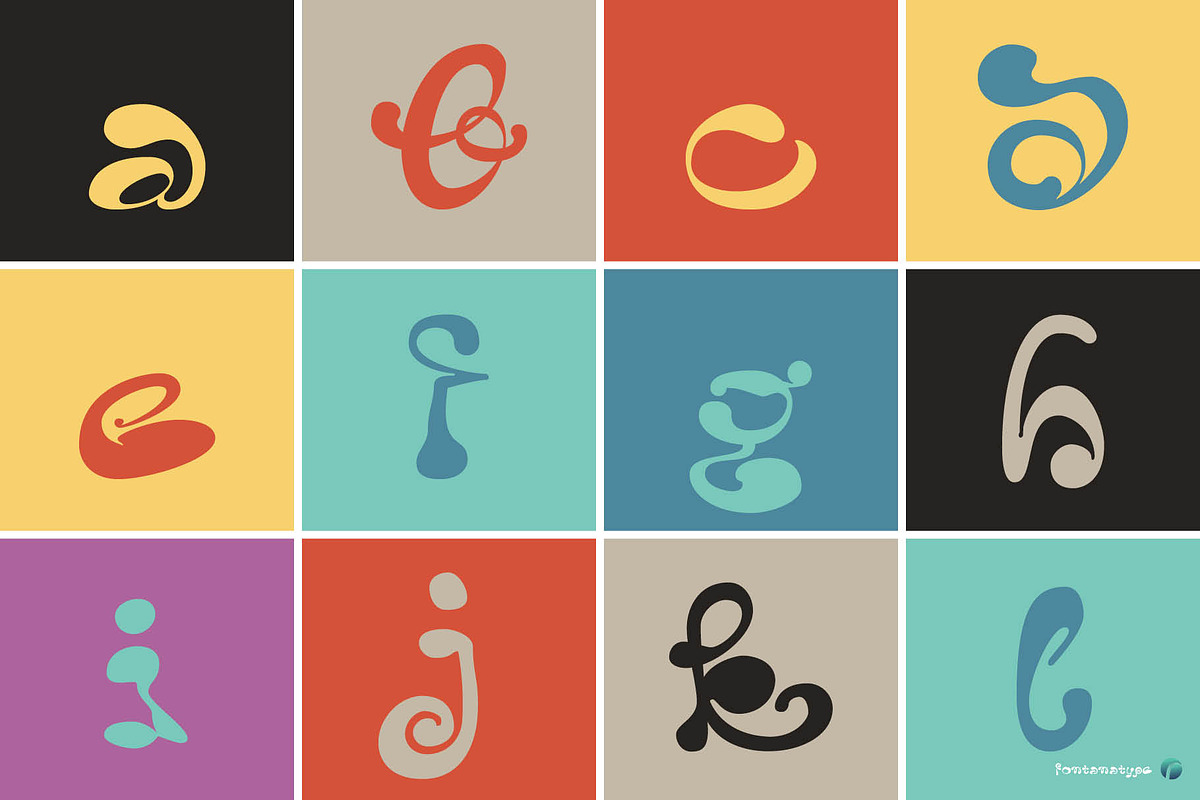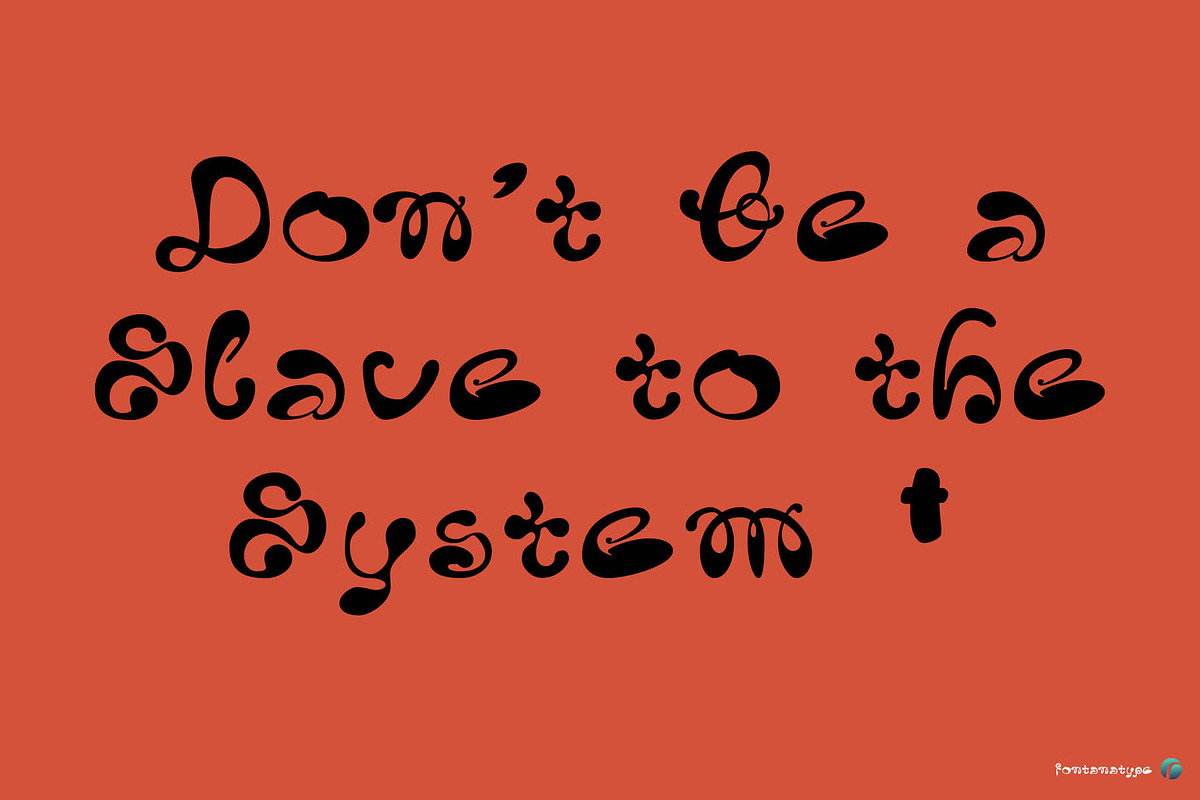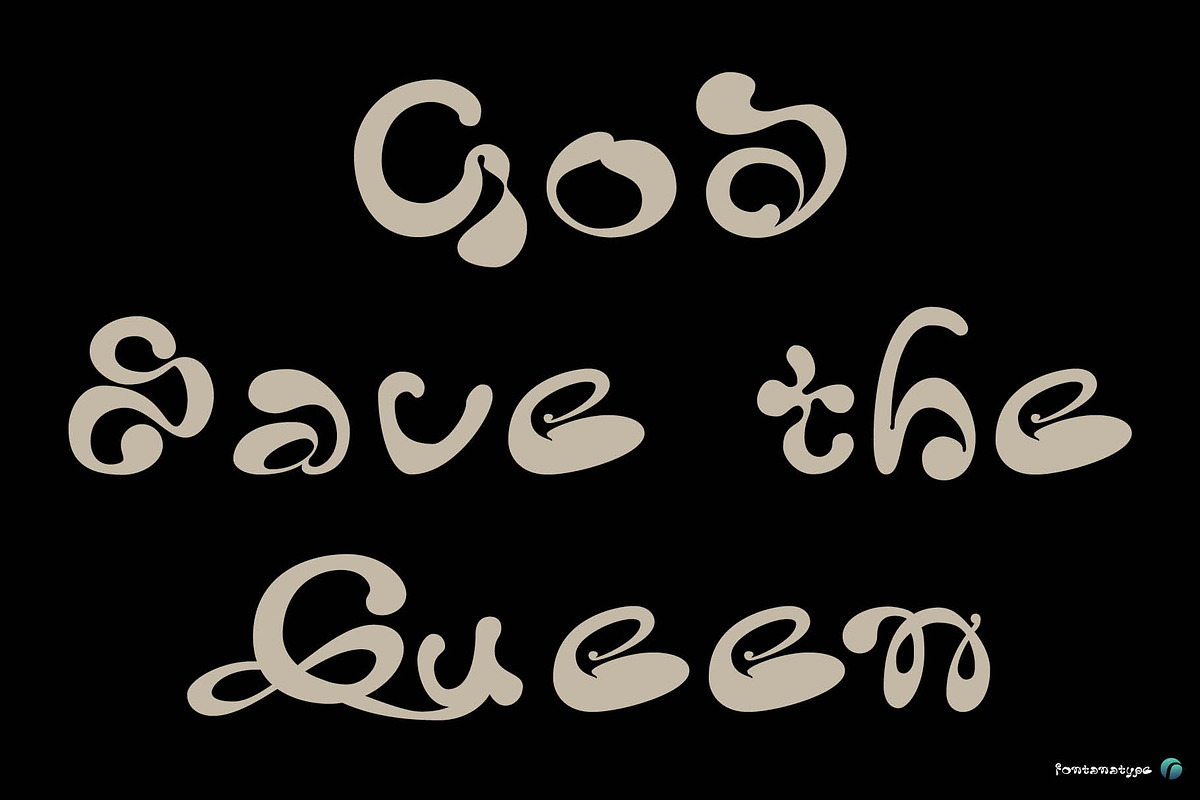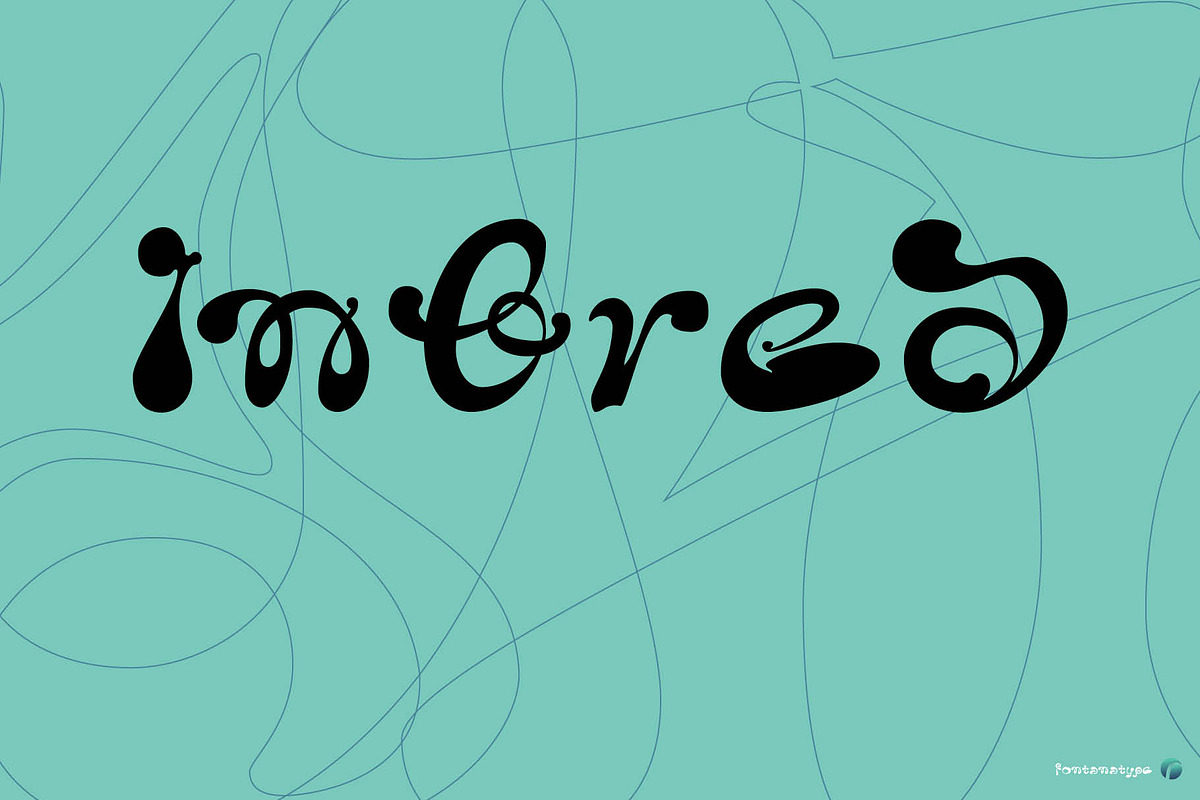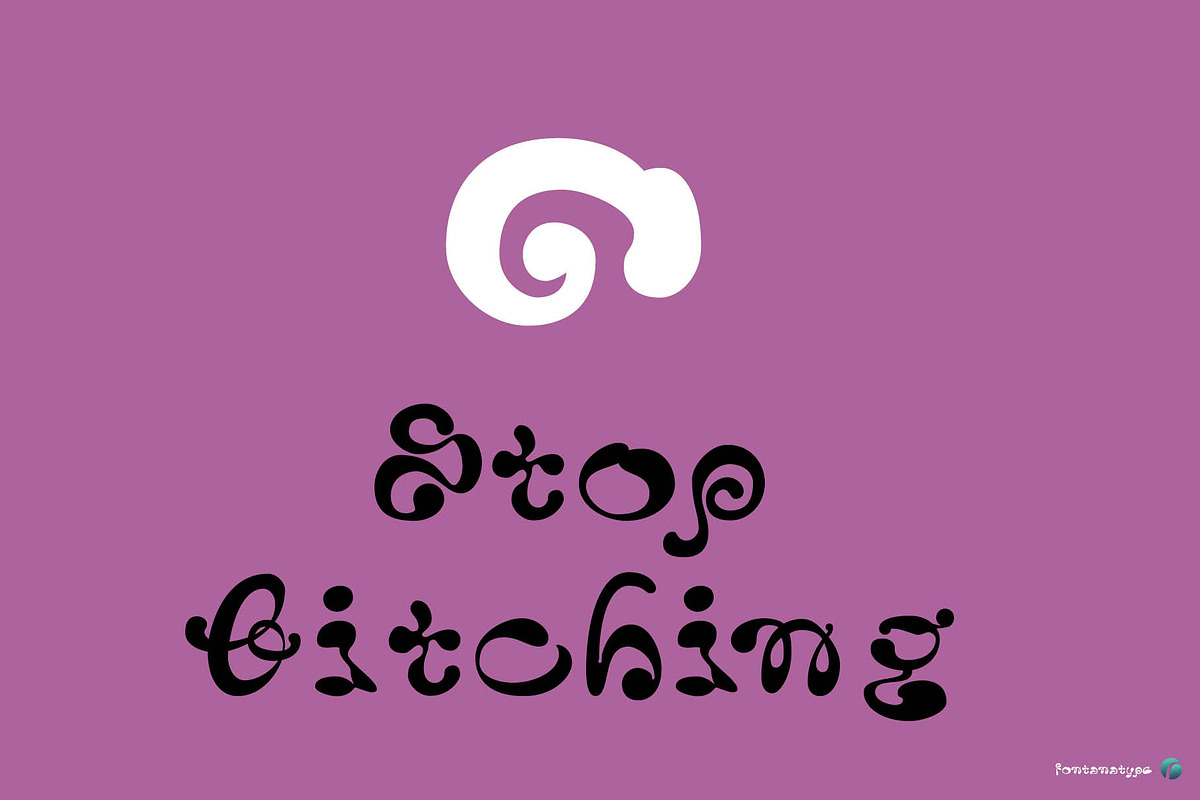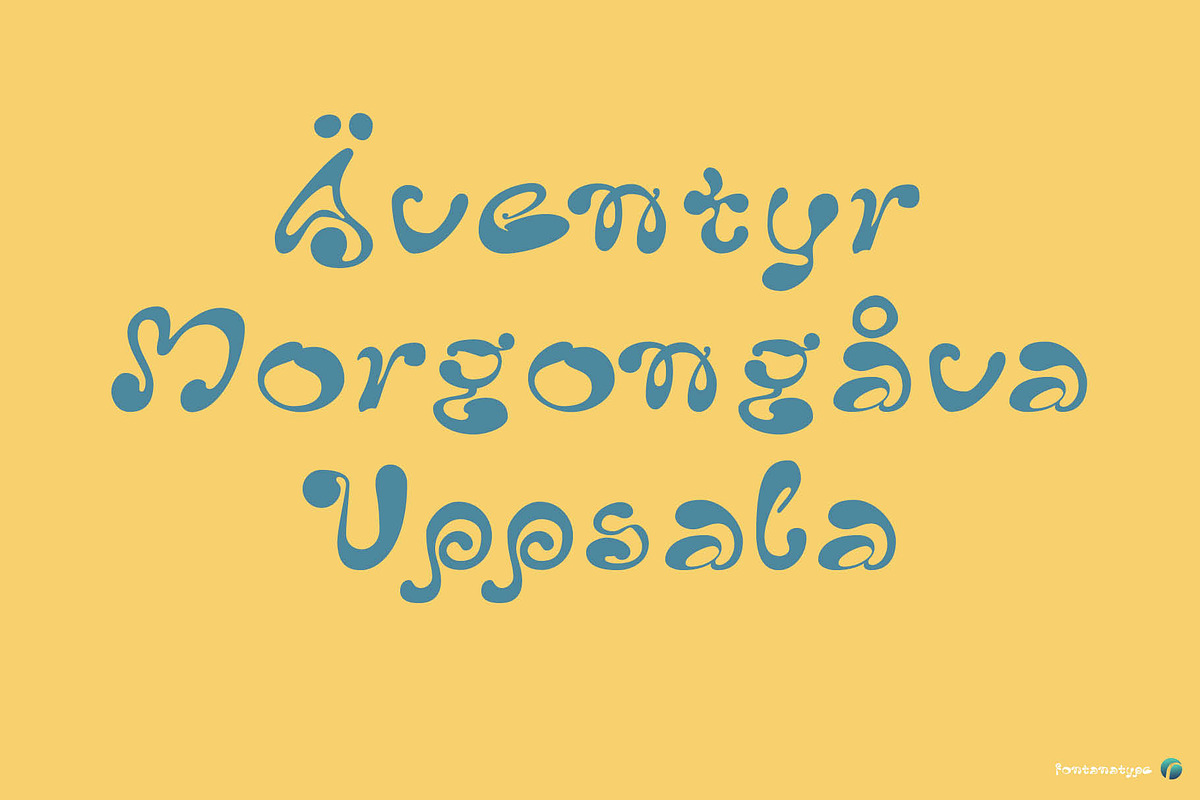
Inbred
Introducing the Inbred. You’ll fall in love with that rebel font sooner before you know what you’re using it for. …and Mulity Language.
In the world of typography, there are countless typefaces available, each with its own unique personality and purpose. Among them, Inbred stands out as a truly unconventional and rebellious typeface, designed to ignite creativity and push the boundaries of design. With its freestyle, handmade, ink-style aesthetic, Inbredis a multilingual typeface that unleashes a new level of expression and experimentation for designers.
Inbred challenges the traditional norms of typography. It embraces imperfections, embraces the handmade touch, and breaks away from the uniformity often associated with digital typefaces. Inbred embodies the raw energy and rebellious spirit of artistic expression, offering a fresh and edgy alternative to conventional type design.
At its core, Inbred is a freestyle typeface. The characters are created with spontaneous brushstrokes, capturing the organic flow of ink on paper. This style adds a dynamic and vibrant quality to the typeface, imbuing each character with a sense of movement and vitality. The irregularities in stroke width and texture give Inbred an authentic, human touch, evoking the feeling of an artist’s sketchbook brought to life.
One of the distinguishing features of Inbred is its versatility across multiple languages. It has been meticulously crafted to support a wide range of alphabets and writing systems, ensuring that designers can explore its expressive potential regardless of the language they are working with. Extended Latin language support helps it.
The Inbred’s rebellious nature extends to its usage possibilities. It’s not confined to specific design applications; instead, it encourages designers to experiment across various mediums. From posters and album covers to branding and packaging, Inbred injects a unique personality into any design project. Its expressive nature allows designers to break free from the constraints of traditional typefaces and create visual experiences that are truly captivating and memorable.